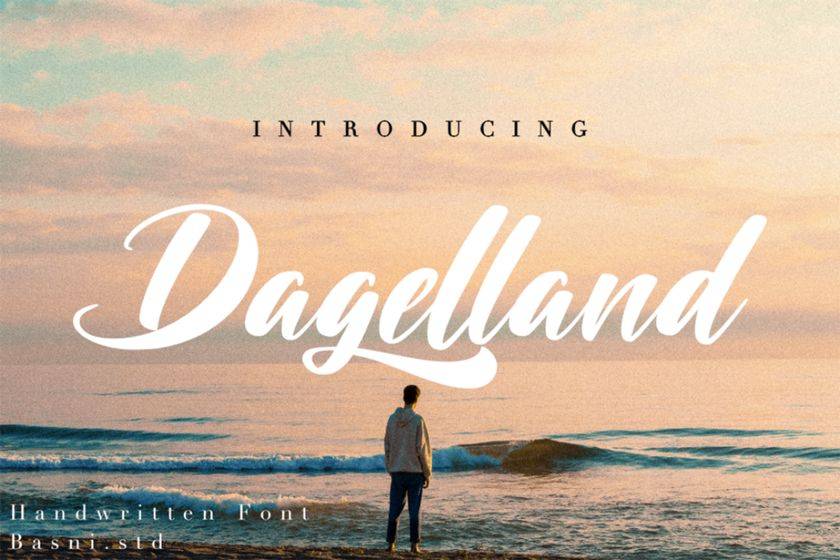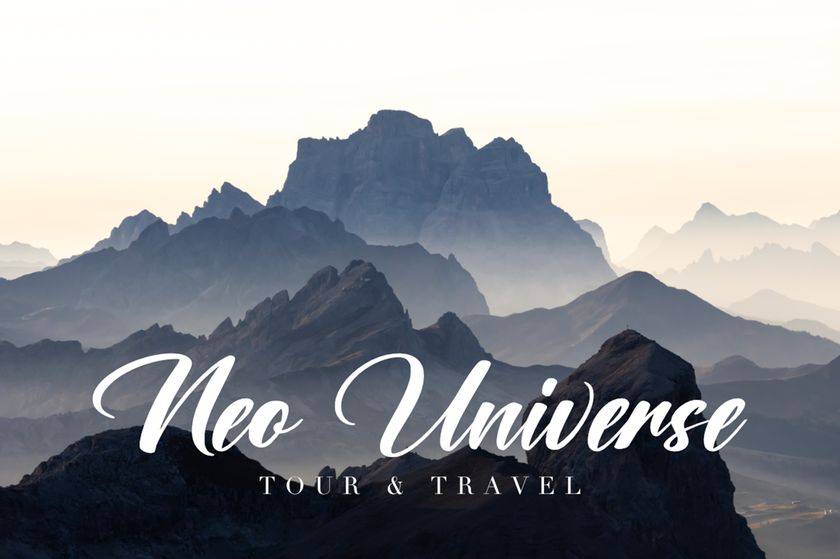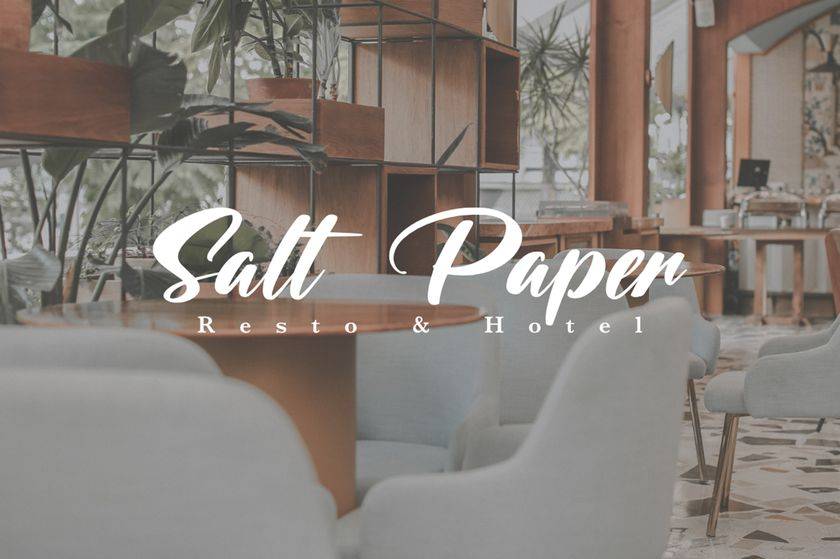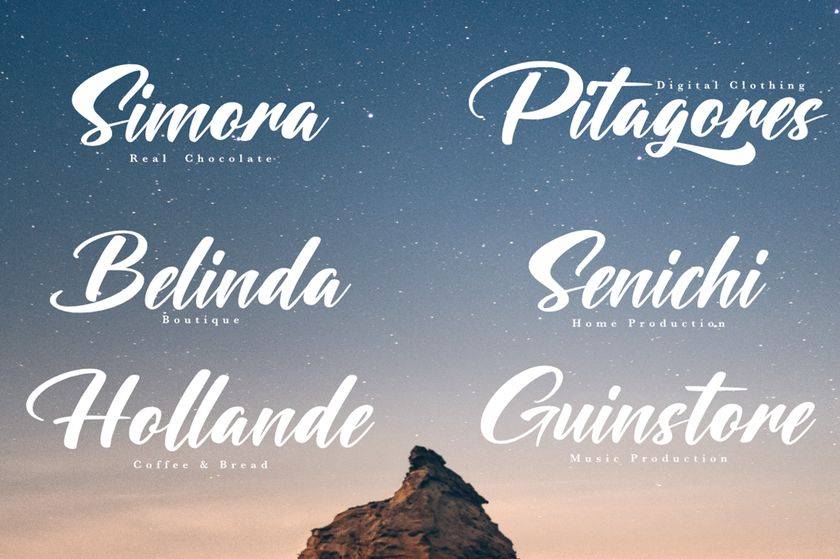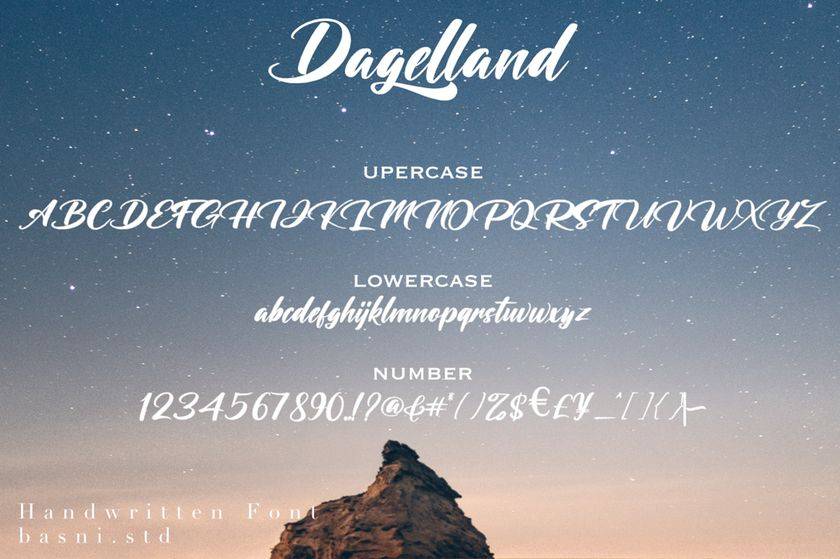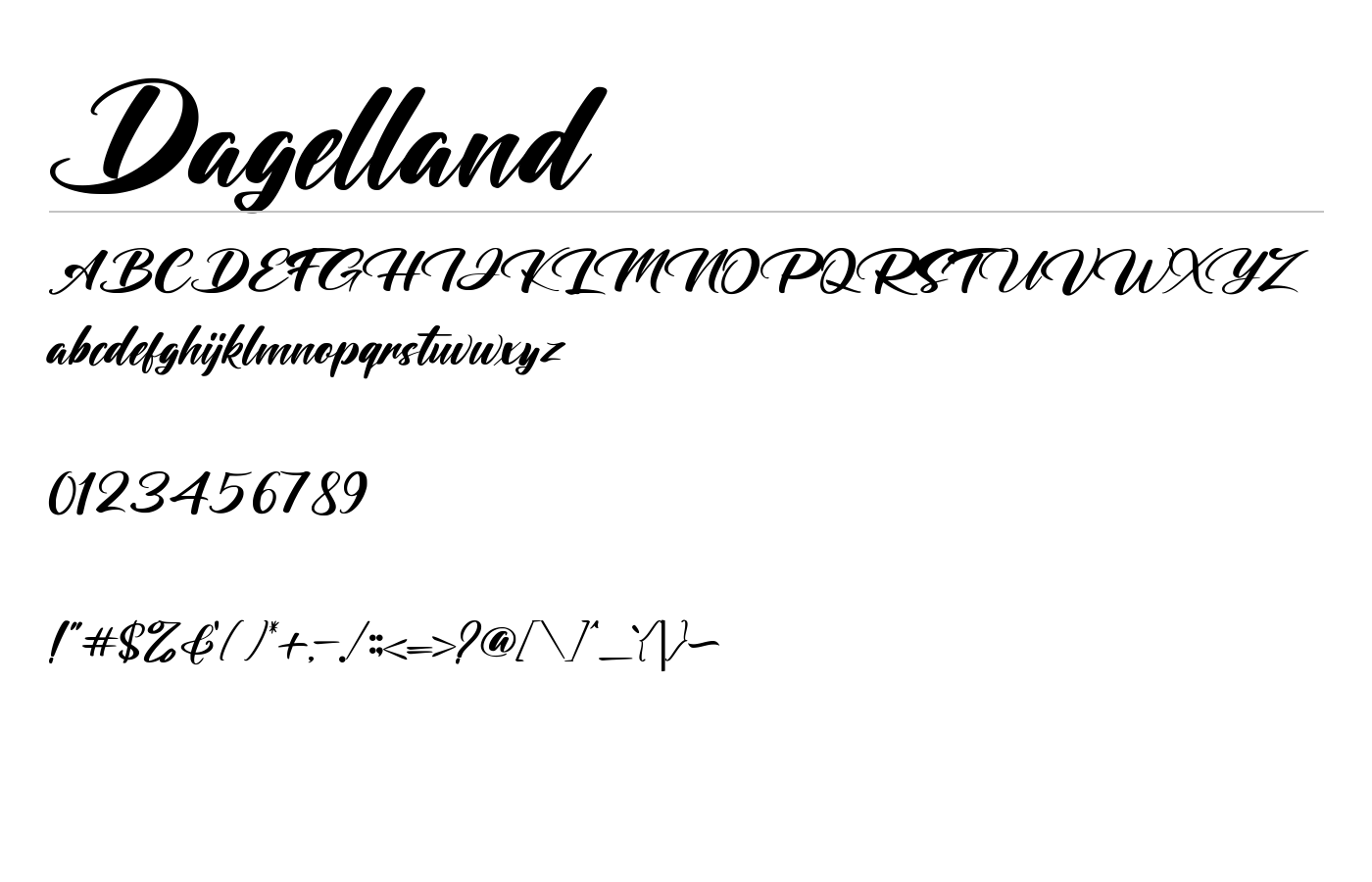
Dagelland is a stylish script font with a lively, elegant flair, featuring smooth, flowing strokes and a moderately high contrast between thick and thin lines. Its upright, connected letterforms and distinctive swashes give it a refined yet dynamic character, perfect for branding, invitations, and expressive headlines where a touch of sophistication and personality is desired. This font works beautifully in fashion, luxury, and creative projects that need an elegant handwritten look with readability and charm.
Dagelland Font
About Dagelland Font